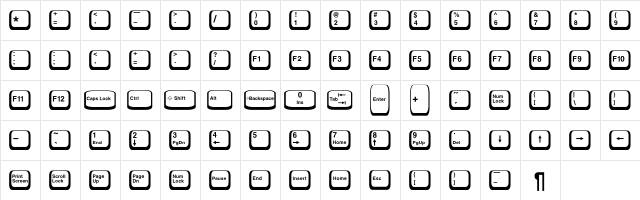
Keyboard2 Regular
Design Context for Keyboard2 Typeface
Keyboard2 takes a measured approach to typography — its balanced proportions and neutral character make it a reliable workhorse for both digital and print work.